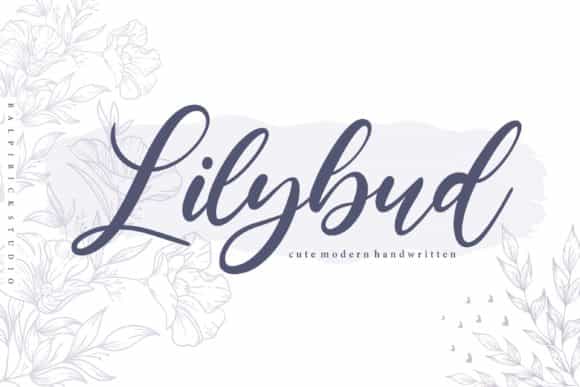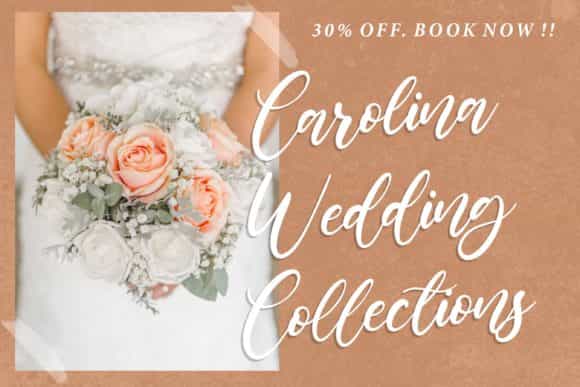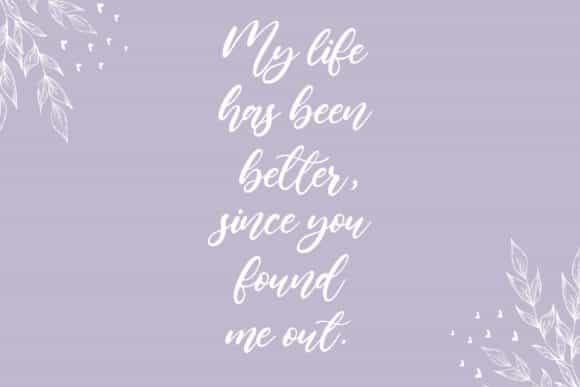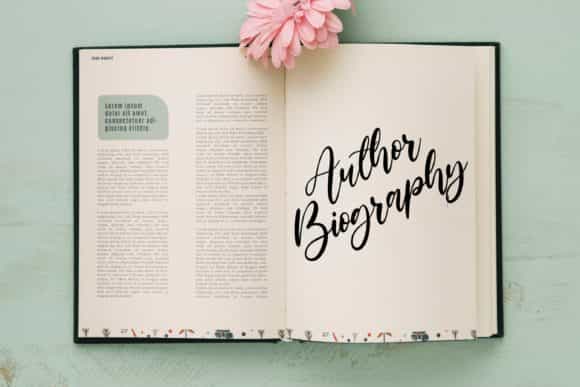
“Lilybud Font” is a contemporary handwritten and calligraphy script font. Each letter is carefully designed so that your words appear gorgeous with a elongated connection model. Modern script style this font is ideal for a variety of projects, for examples weddings, invitations greeting cards posters and business cards as well as blog headers, quotes logos, branding clothes, fashion letters stationary.